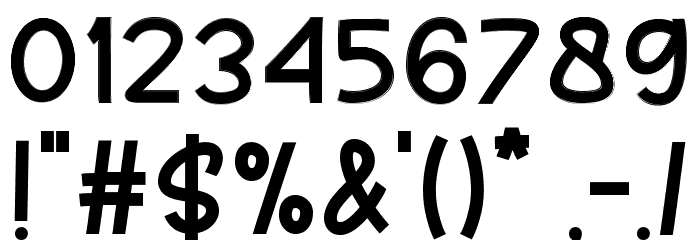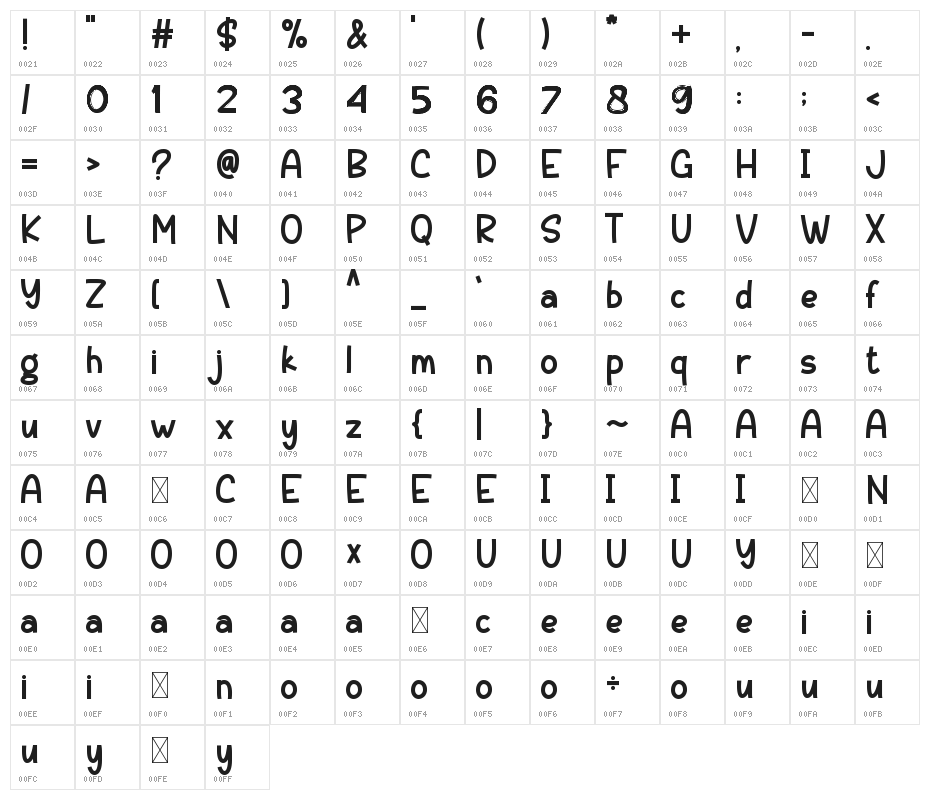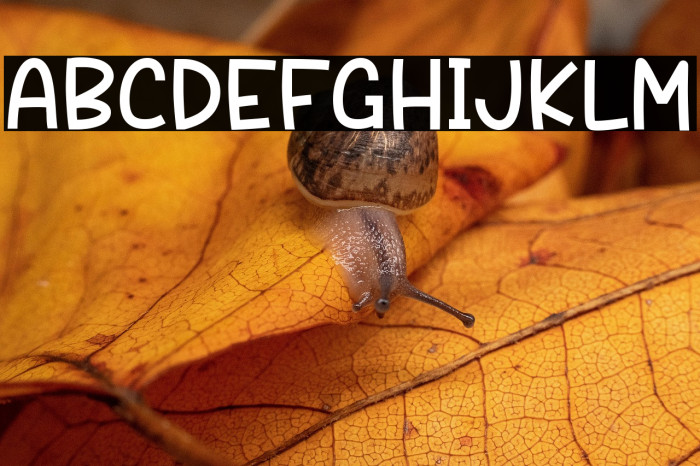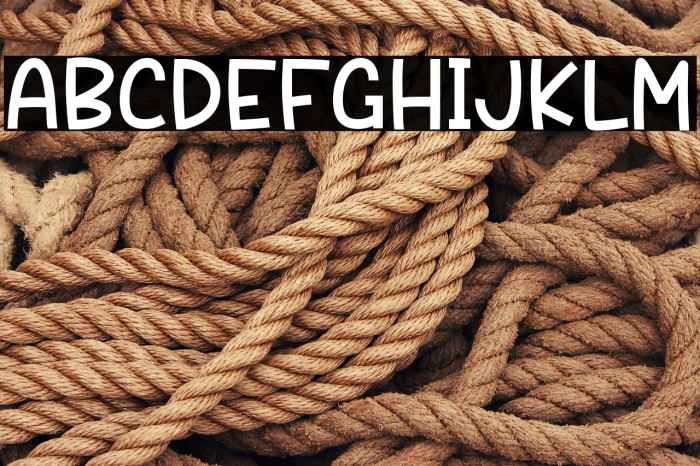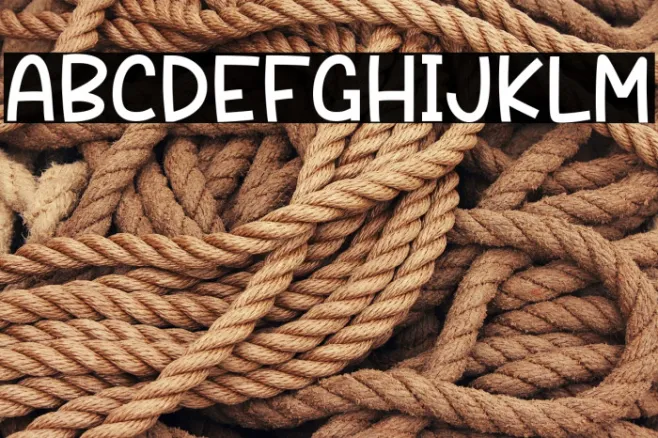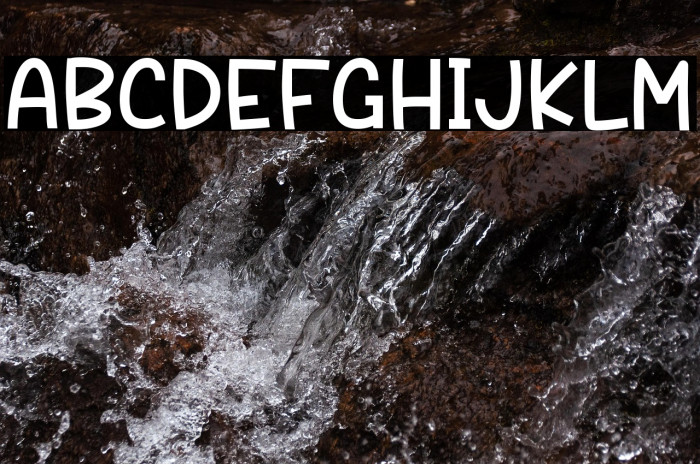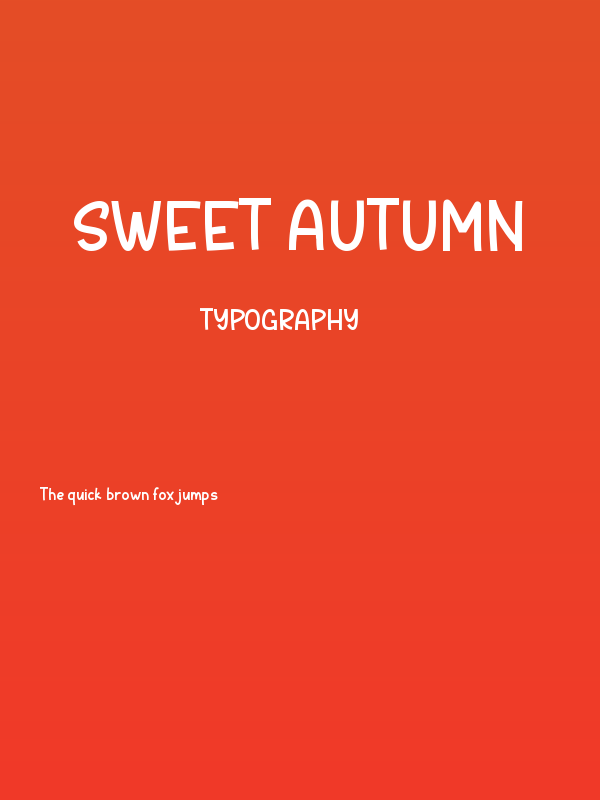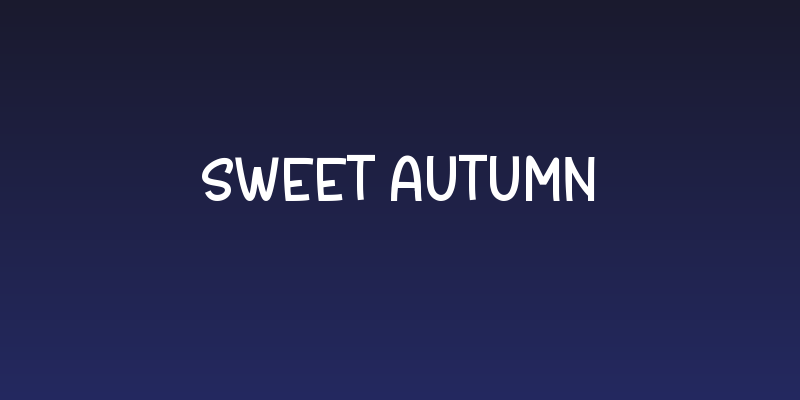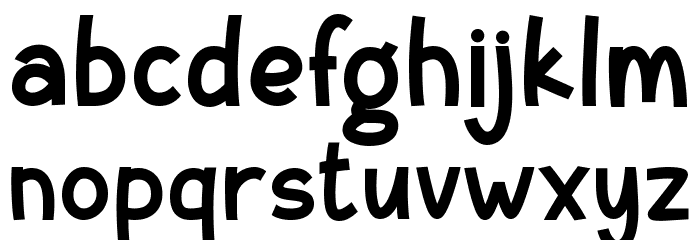
Sweet Autumn Font
Sweet Autumn Description
This playful and whimsical font features a handwritten style with a casual, friendly appearance. The characters are slightly rounded with a consistent stroke width, giving it a smooth and approachable look. The uppercase letters are bold and prominent, while the lowercase letters maintain a similar weight, ensuring readability. Numbers and special characters are designed to match the overall style, making them suitable for various creative applications. The font's informal nature makes it ideal for projects that require a personal touch or a fun, lighthearted vibe.
| Proposed Projects | Ideal for greeting cards, children's books, playful branding, and social media graphics. |